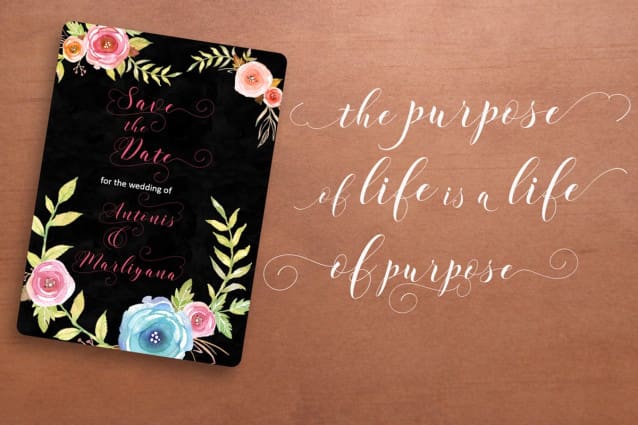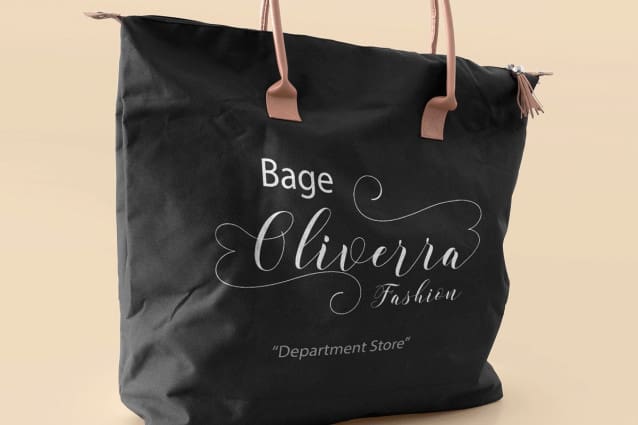
Wholler Calligraphy Font
Wholler Calligraphy Font is Modern Calligraphy. This font was designed by handwriting, and it has a modern and unique forms of calligraphy, the writing style is very natural.